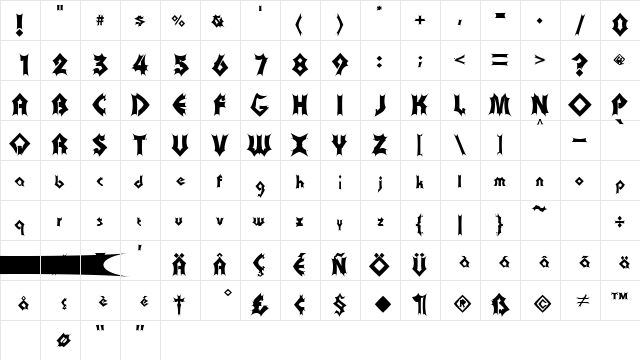
Transylvania-Regular Regular
Design Context for Transylvania-Regular Typeface
Transylvania-Regular is a composed and adaptable typeface that performs quietly and consistently across a wide range of design contexts.